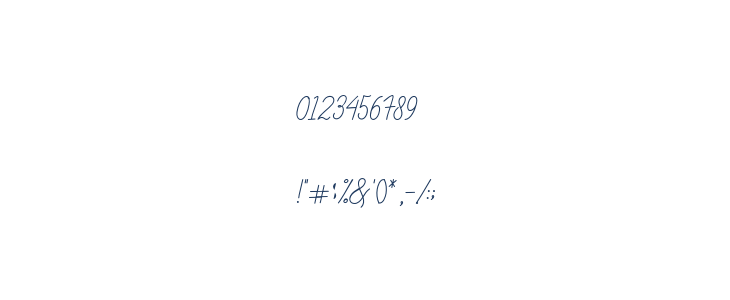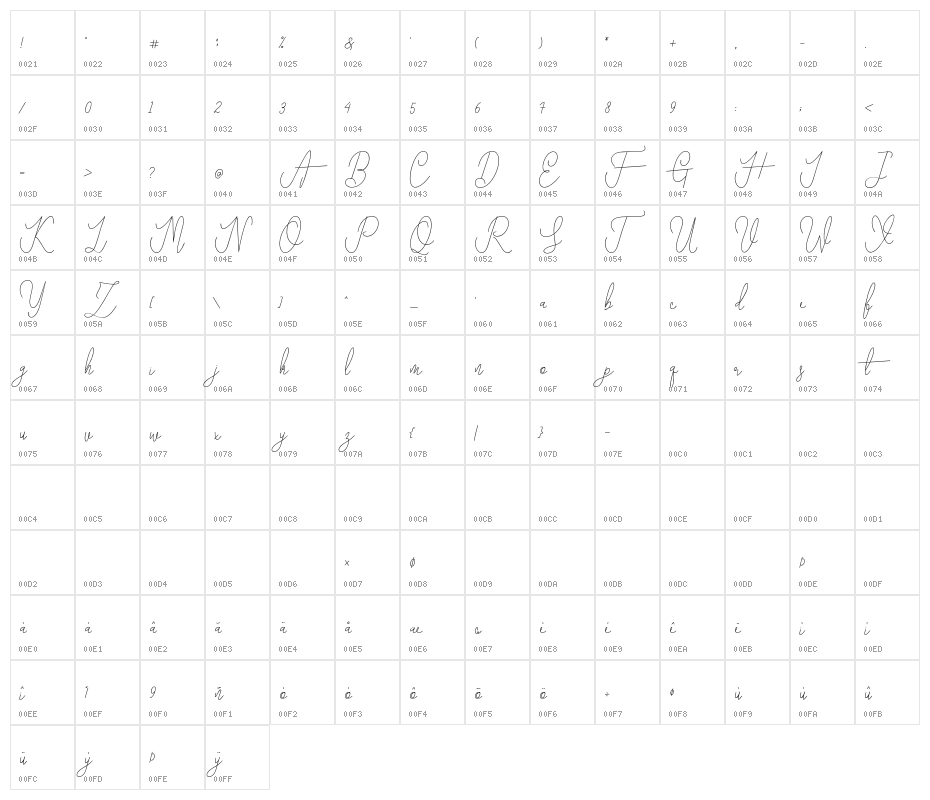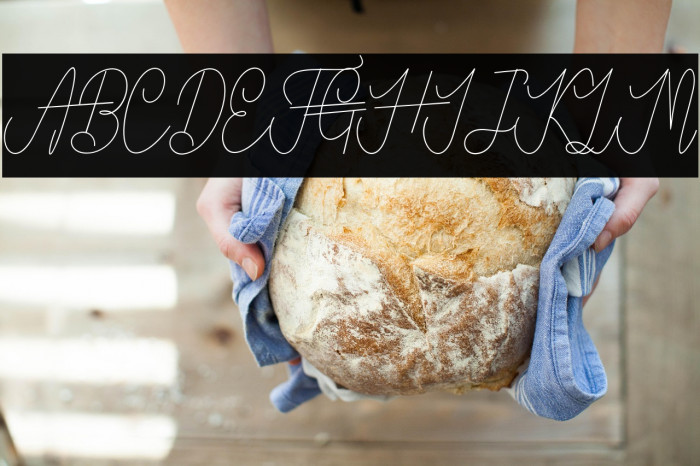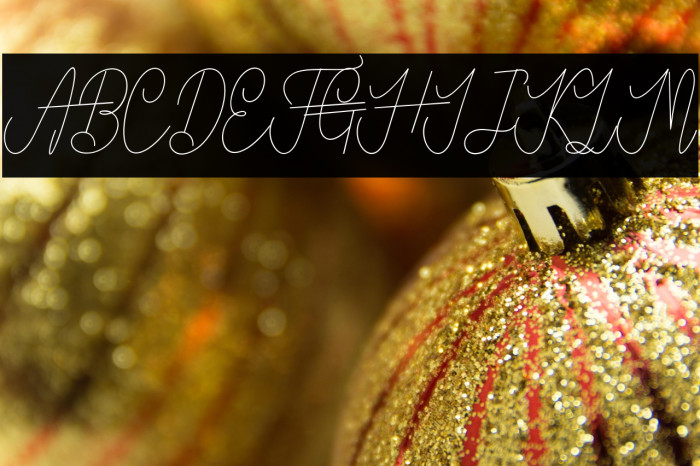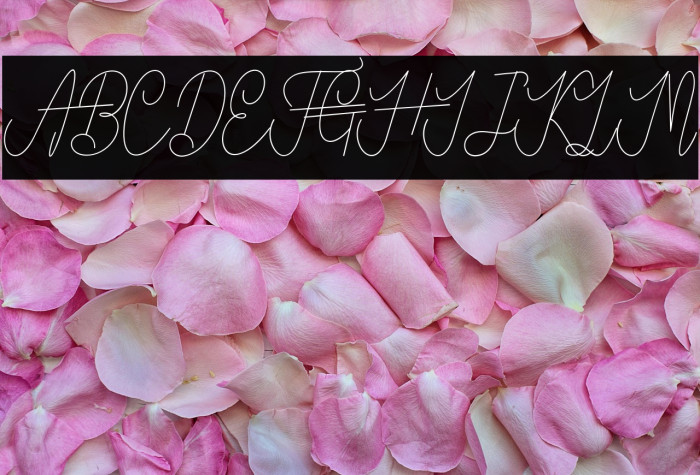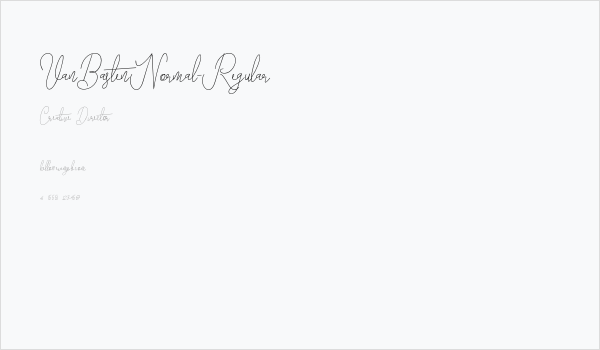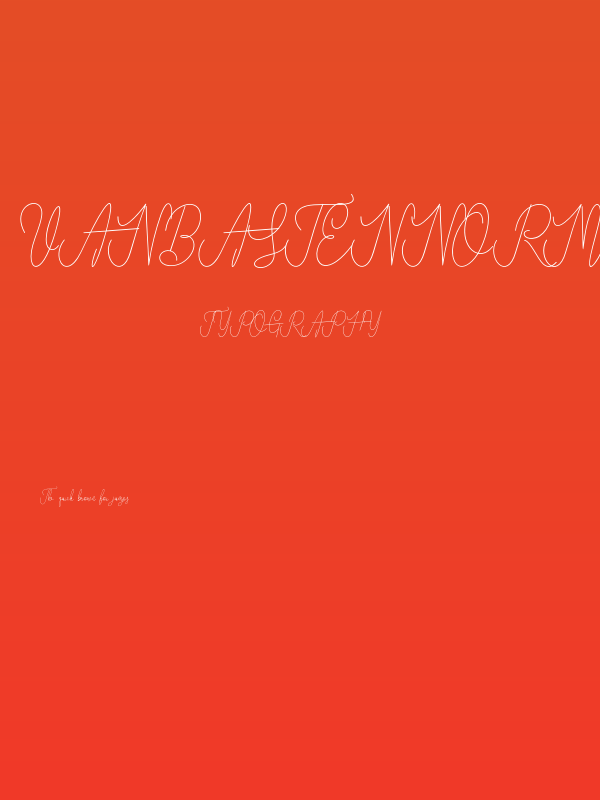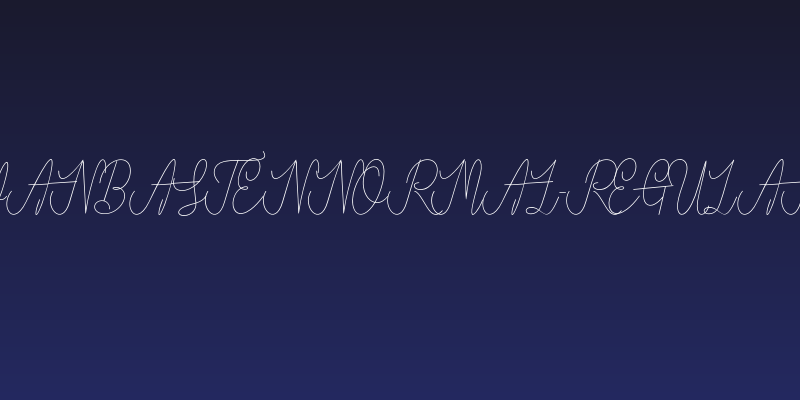
VanBastenNormal-Regular Font
VanBastenNormal-Regular Description
This elegant script font features a flowing, cursive style with delicate, thin strokes that give it a refined and sophisticated appearance. The uppercase letters are characterized by graceful loops and swirls, while the lowercase letters maintain a consistent fluidity, enhancing the overall harmony of the design. The numerals are designed with a similar elegance, ensuring a cohesive look across all characters. Special characters are also included, maintaining the same stylistic elements, making this font versatile for various uses. Its delicate nature and artistic flair make it ideal for projects that require a touch of elegance and class.
| Overall Style | Elegant, Artistic |
| Use Case | Invitations, Branding, Stationery |
| Proposed Projects | Ideal for wedding invitations, elegant branding, personal stationery, and artistic projects. |